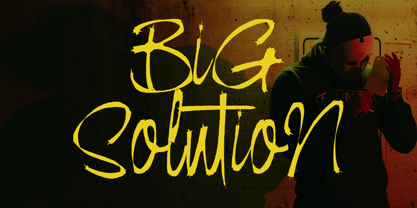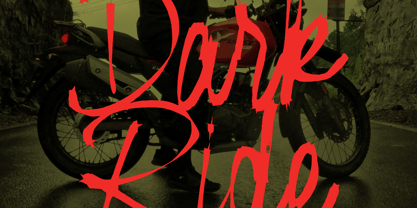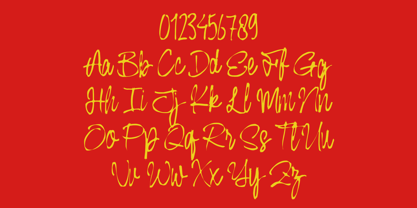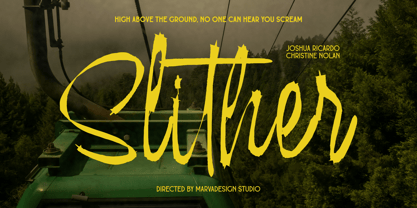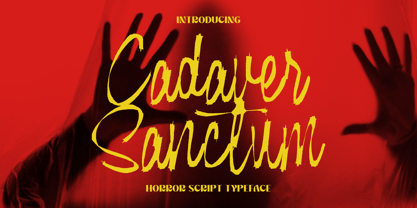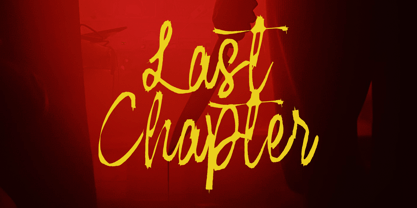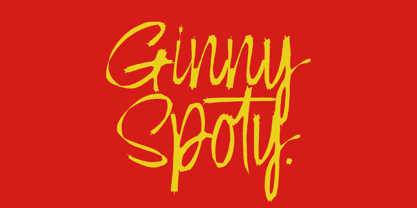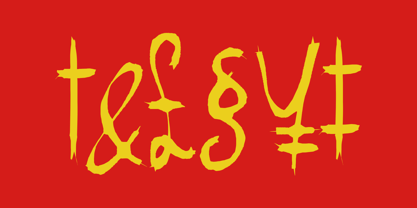
Cadaver Sanctum
by Marvadesign
The Cadaver Sanctum Font Family was designed by Febrie Setiawan and published by Marvadesign. Cadaver Sanctum contains 1 styles. More about this family
Cadaver Sanctum is a horror-themed script font that blends raw, handwritten energy with eerie, unsettling flair. Featuring rough brush strokes, jagged edges, and irregular letterforms, the font evokes a sense of chaos and dread perfectly suited for horror movie posters, thriller book covers, or Halloween themed designs. Its dramatic uppercase characters contrast well with the flowing, slashed lowercase forms, creating a disturbing yet stylish look. The distressed texture mimics ink drag or scratched surfaces, enhancing its creepy aesthetic. This font screams horror while maintaining high legibility for impactful storytelling visuals.
Designers: Febrie Setiawan
Foundry: Marvadesign